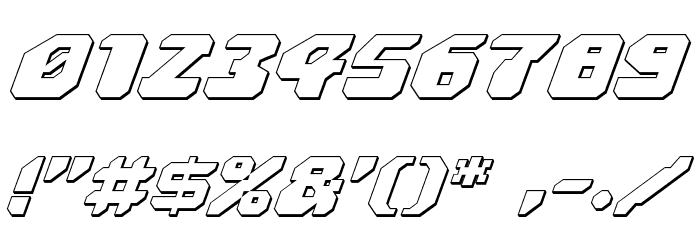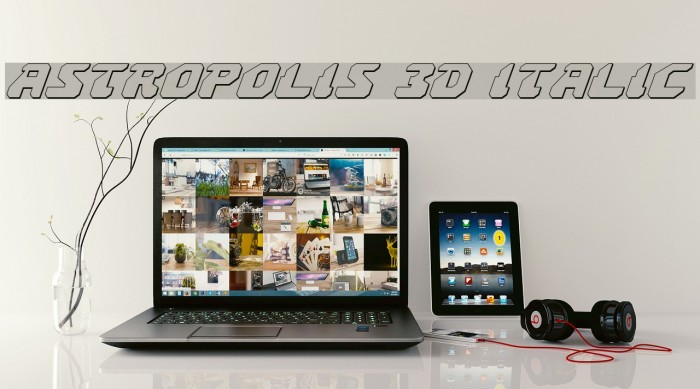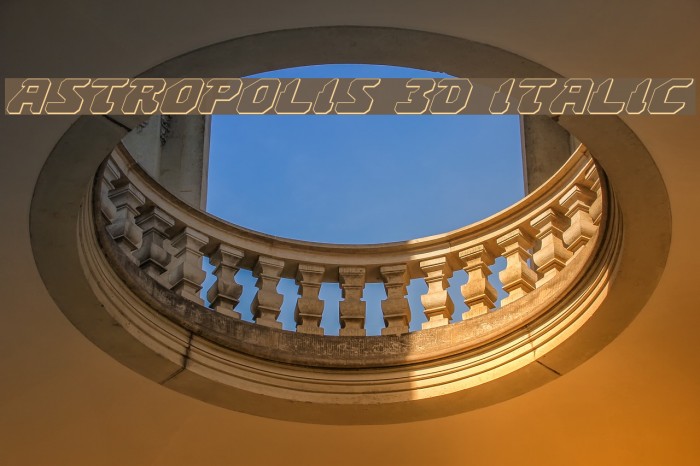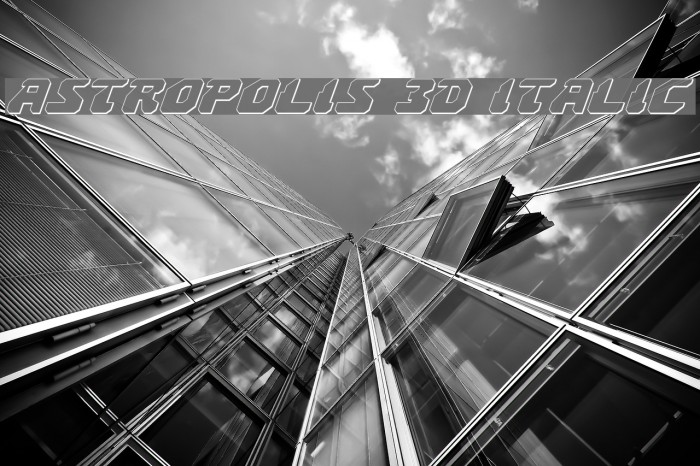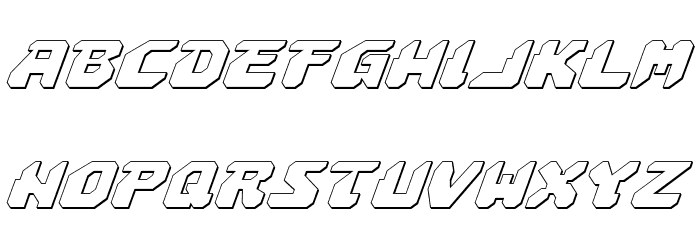
Astropolis 3D Italic Font
Astropolis 3D Italic Description
This font features a bold, three-dimensional design with an italic slant, giving it a futuristic and dynamic appearance. The characters are outlined, creating a hollow effect that enhances the 3D illusion. Each letter and number is crafted with angular edges and a consistent stroke width, contributing to a cohesive and modern aesthetic. The font's style is reminiscent of digital or sci-fi themes, making it suitable for projects that require a strong visual impact. The spacing between characters is tight, which adds to the compact and energetic feel of the typeface.
| Overall Style | Futuristic |
| Proposed Projects | Ideal for sci-fi themed posters, video game titles, tech branding, and futuristic event flyers. |